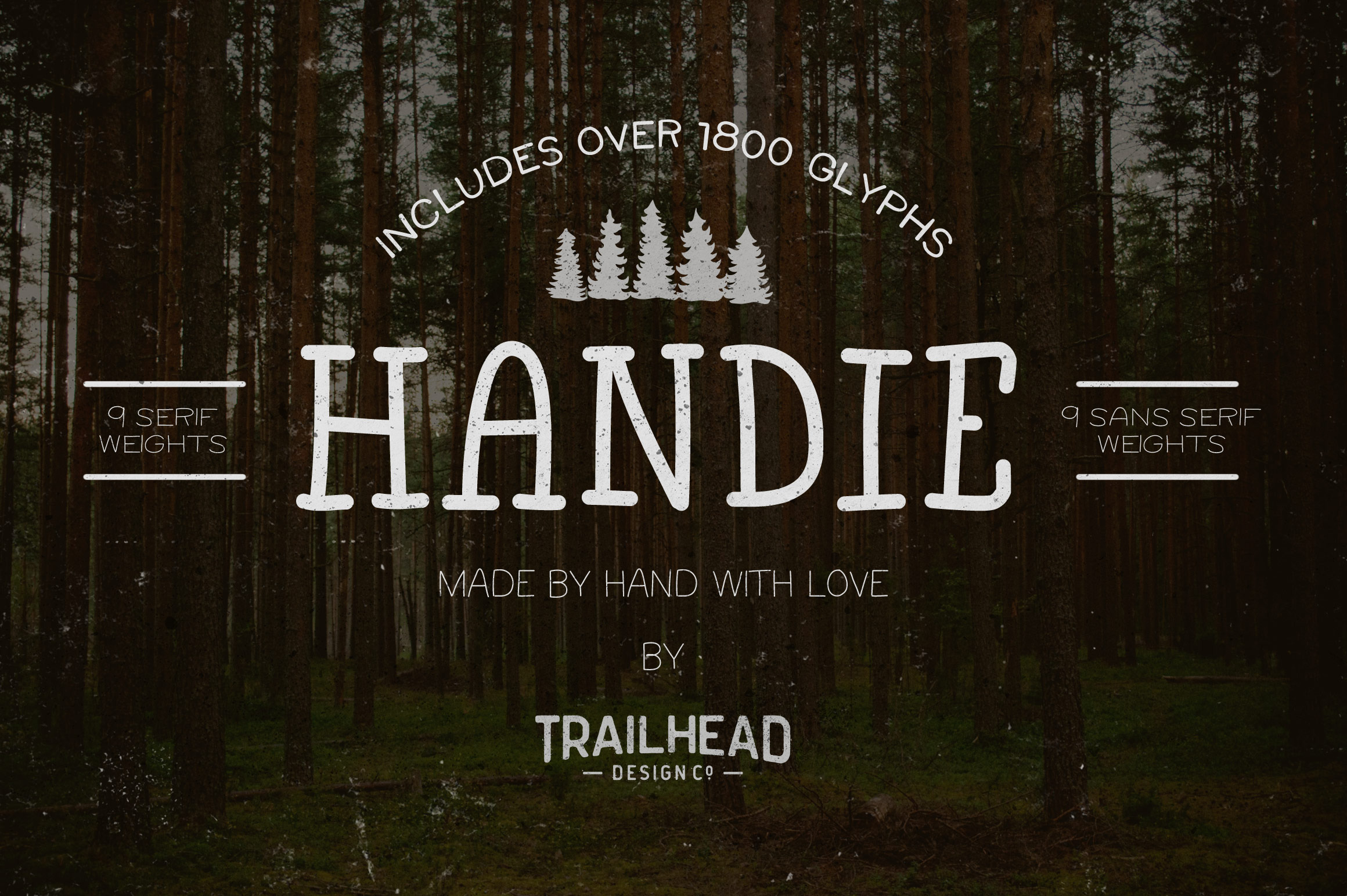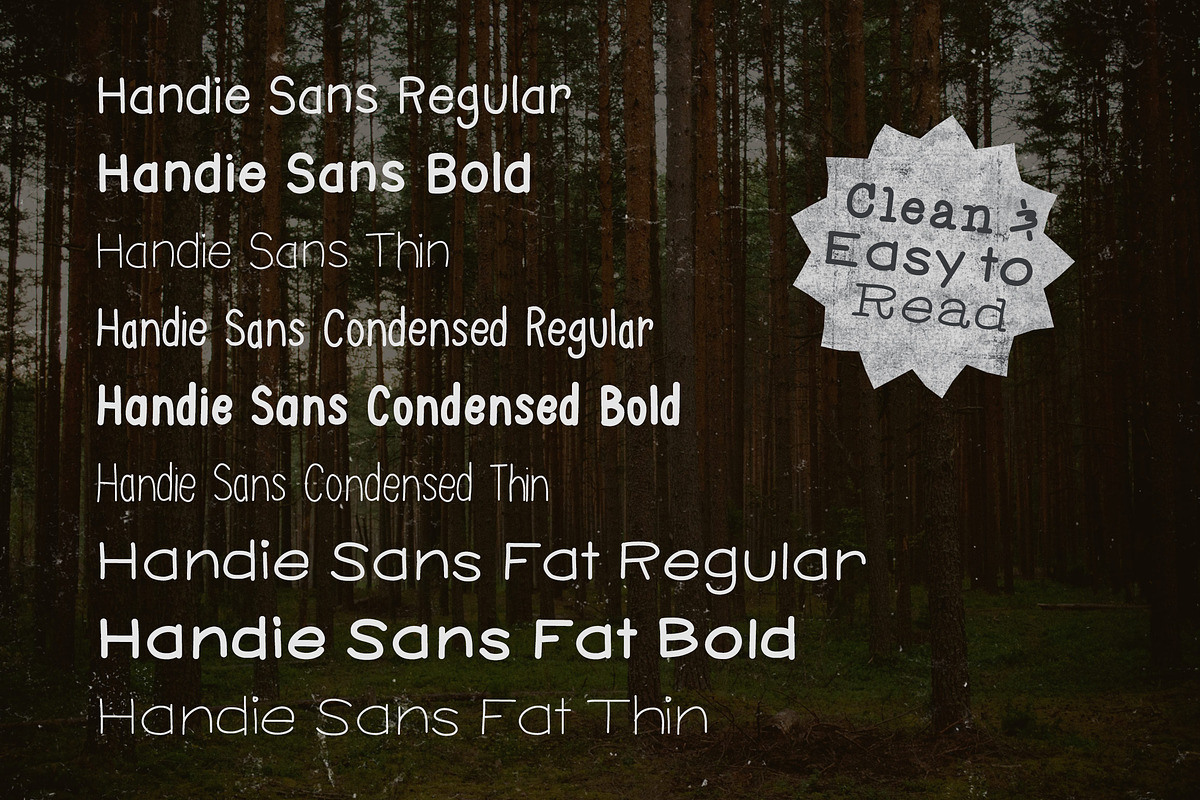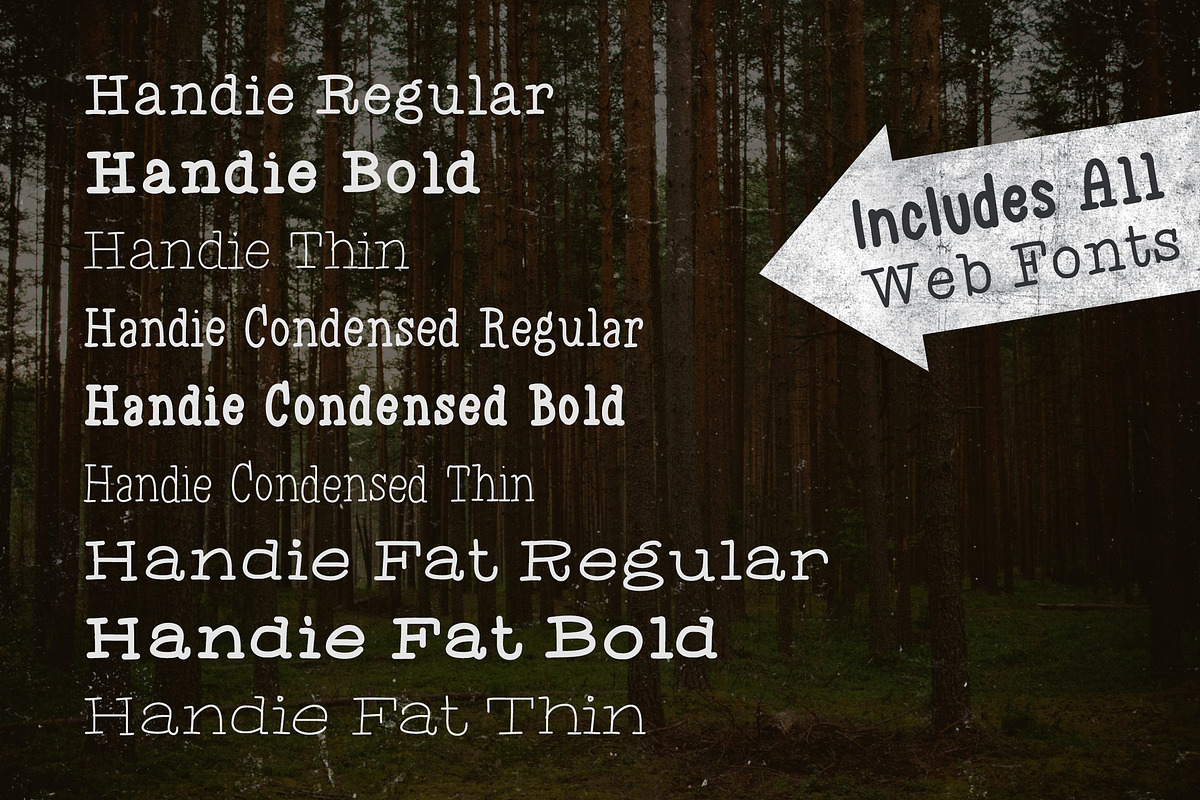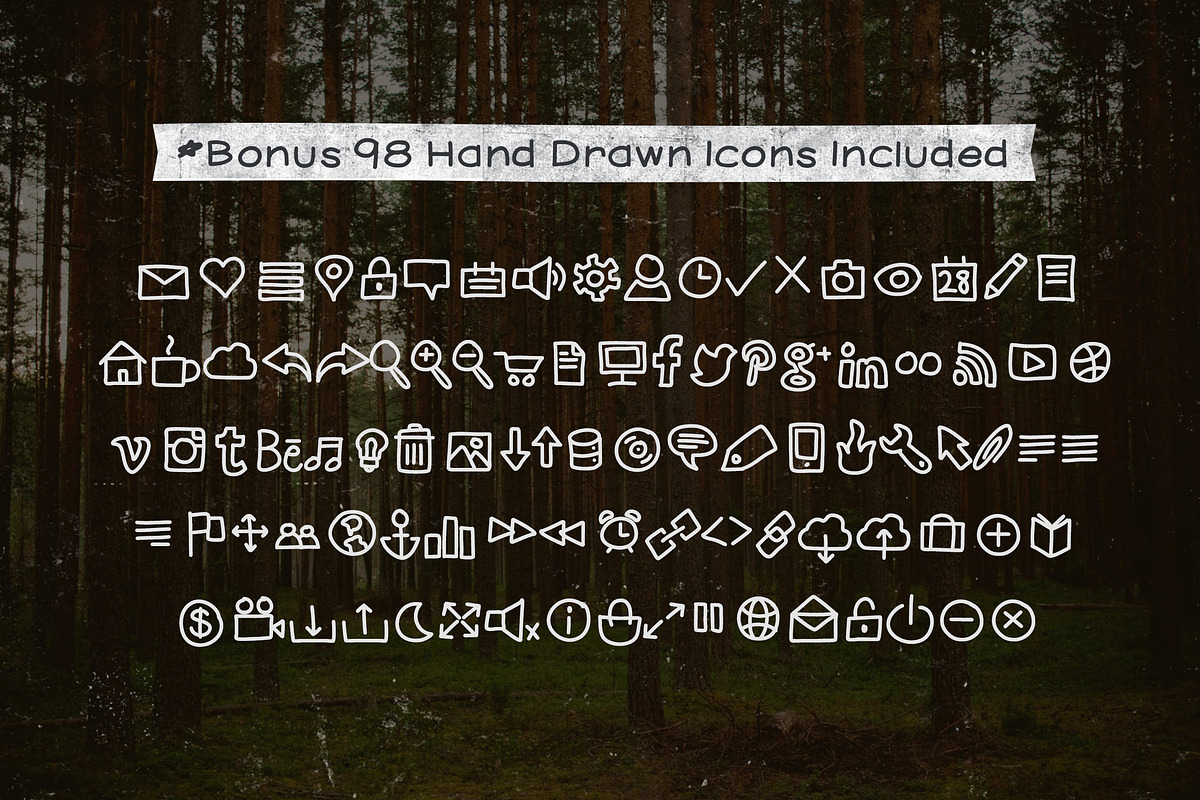
Handie Fonts - Over 1800 Glyphs
Handy Fonts is a collection of hand written fonts that are basic and simple to read, even at smaller sizes. The collection includes a variety of widths and weights in both serif and sans serif versions. With a total of 18 versions, you're sure to find the perfect fit for your next print or web design project.
The inspiration for these fonts came from the need for a simple hand written style that is clear and easy to read. I wasn't able to find anything with the exact look and various options I was after. From there, the Handie Fonts collection was born.
Handie Serif Regular
Handie Serif Bold
Handie Serif Thin
Handie Serif Condensed
Handie Serif Condensed Bold
Handie Serif Condensed Thin
Handie Serif Fat
Handie Serif Fat Bold
Handie Serif Fat Thin
Handie Sans Serif Regular
Handie Sans Serif Bold
Handie Sans Serif Thin
Handie Sans Serif Condensed
Handie Sans Serif Condensed Bold
Handie Sans Serif Condensed Thin
Handie Sans Serif Fat
Handie Sans Serif Fat Bold
Handie Sans Serif Fat Thin
98 Handie Bonus Icons